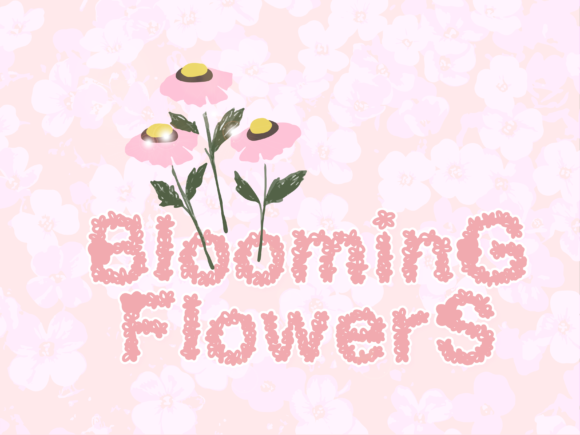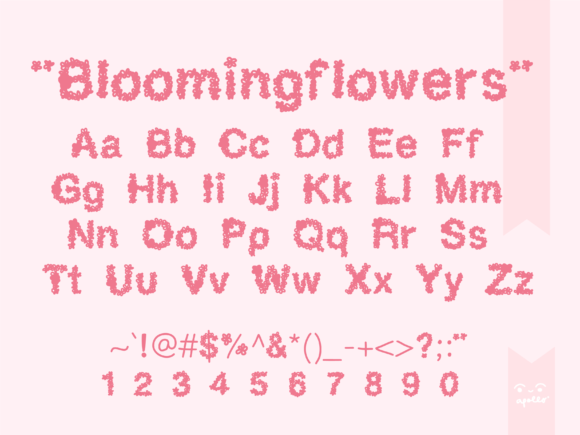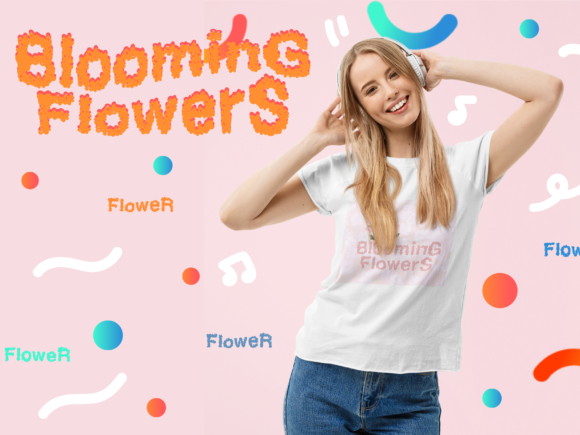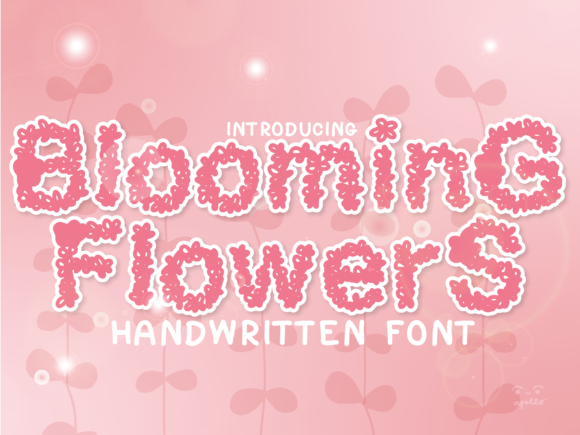
The Blooming Beauty: Unveiling the Charm of Blooming Flowers Font
As a designer, I’ve had my fair share of moments where finding the perfect font felt like searching for a needle in a haystack. I recall working on a spring-themed project, and the font I had chosen just wasn’t capturing the essence of the season. That’s when I stumbled upon the Blooming Flowers Font – a beautiful handwritten font that embodies the spirit of spring with flora on each character. It was love at first sight! 💐
What I Love About Blooming Flowers Font
- ✨ Unique Floral Elements: Each character in the font features intricate floral designs, making it perfect for spring and Easter-themed projects.
- ✅ Elegant and Whimsical: The font strikes a beautiful balance between elegance and playfulness, suitable for a wide range of creative projects.
- 🌸 Highly Versatile: From greeting cards and invitations to branding and packaging, Blooming Flowers Font can elevate any design.
While Blooming Flowers Font is incredibly charming, there are a few things to consider:
- ⚠️ Legibility at Small Sizes: Due to the intricate details, the font may not be as legible at very small sizes. It’s best used at larger sizes where the floral elements can shine.
- 🤔 Pairing with Other Fonts: Because of its distinctive style, it may require careful consideration when pairing with other fonts to ensure harmony in your design.
- Experiment with the OpenType features and glyphs to add more floral elements to your text.
Exploring Alternatives: 4 Fonts Similar to Blooming Flowers
If you’re looking for more fonts with a similar vibe, consider these alternatives:
- Floral Wreath: A more intricate font with detailed floral wreaths around each letter, ideal for very special occasions.
- Petite Fleur: Offers a delicate and minimalist floral touch to each character, great for designs that require a subtle elegance.
- Garden Party: A whimsical font with a party-like feel, featuring colorful and lively floral elements.
- Botanical Script: A more traditional script font infused with botanical illustrations, suitable for designs that need a touch of vintage charm.
The Inspiration Behind Blooming Flowers Font
The creator of Blooming Flowers Font was inspired by the vibrant colors and beauty of blooming gardens in the spring. With a keen eye for detail and a love for nature, the designer meticulously crafted each character to reflect the elegance and freshness of the season. The result is a font that not only captures the essence of spring but also adds a unique touch to any design project.